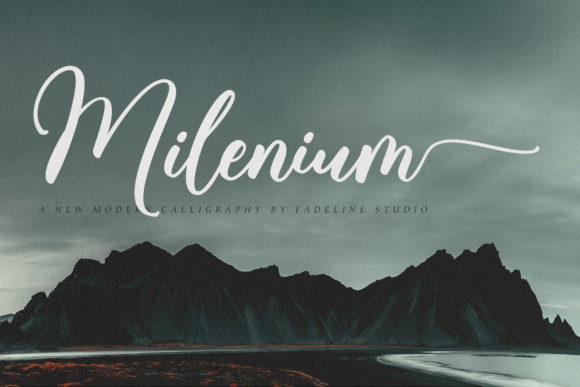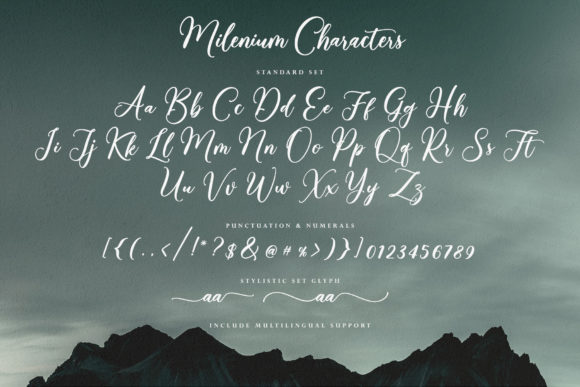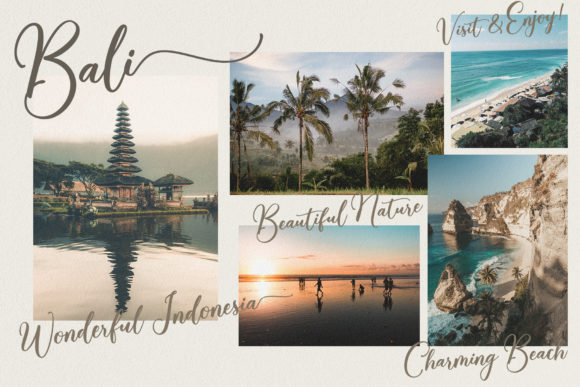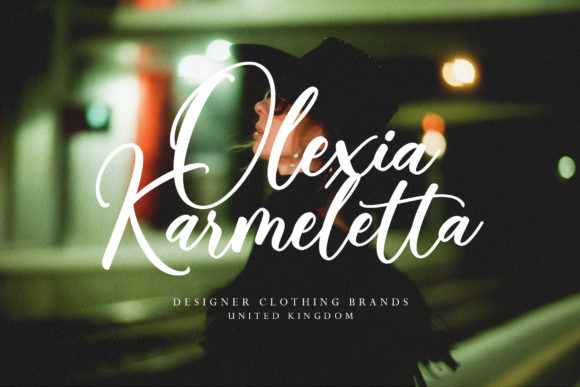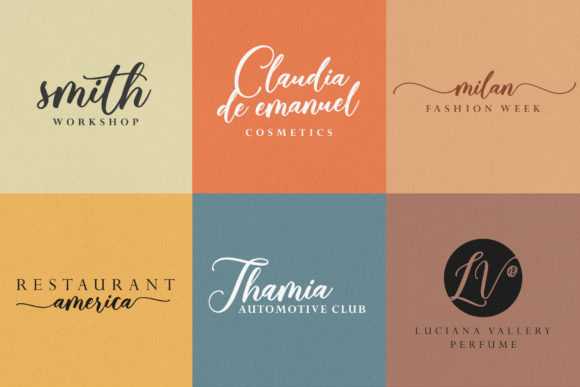
About Milenium Script Font
Milenium Script is a captivating and meticulously designed script font that exudes a sense of brilliance and sophistication. Its intricate details and flawless craftsmanship make it a truly remarkable typeface. The font’s elegant curves and flowing strokes contribute to its overall charm, allowing it to shine in a variety of design projects.
With its PUA (Private Use Area) encoding, Milenium Script provides convenient access to a plethora of glyphs and swashes. This feature enhances your creative freedom and enables you to effortlessly incorporate decorative elements, alternate characters, and unique flourishes into your designs.
Whether you’re working on branding, invitations, posters, or any other creative endeavor, Milenium Script’s dazzling appeal can effortlessly elevate your project. Its combination of beauty and versatility makes it a valuable addition to your design toolkit, allowing you to create stunning visuals that leave a lasting impression. Embrace Milenium Script’s intricate charm and explore the possibilities it offers to infuse your designs with elegance and finesse.